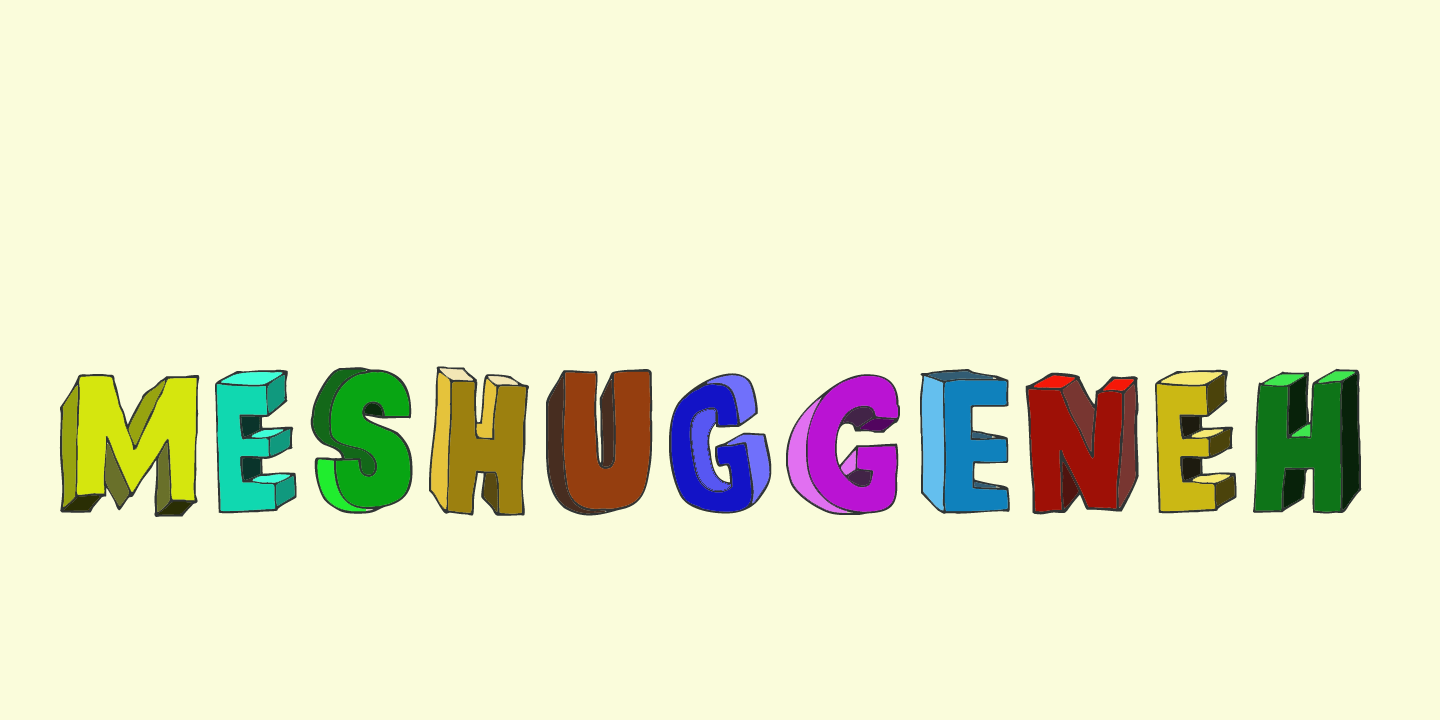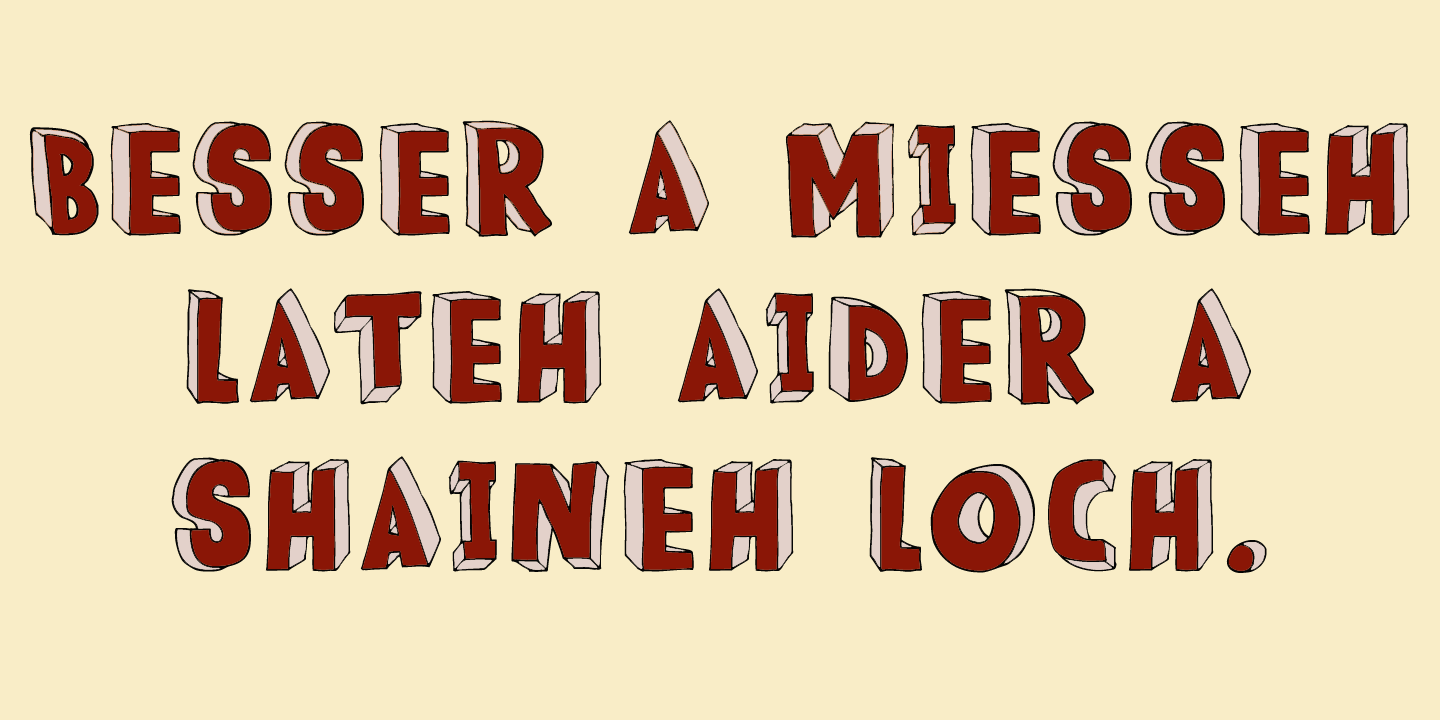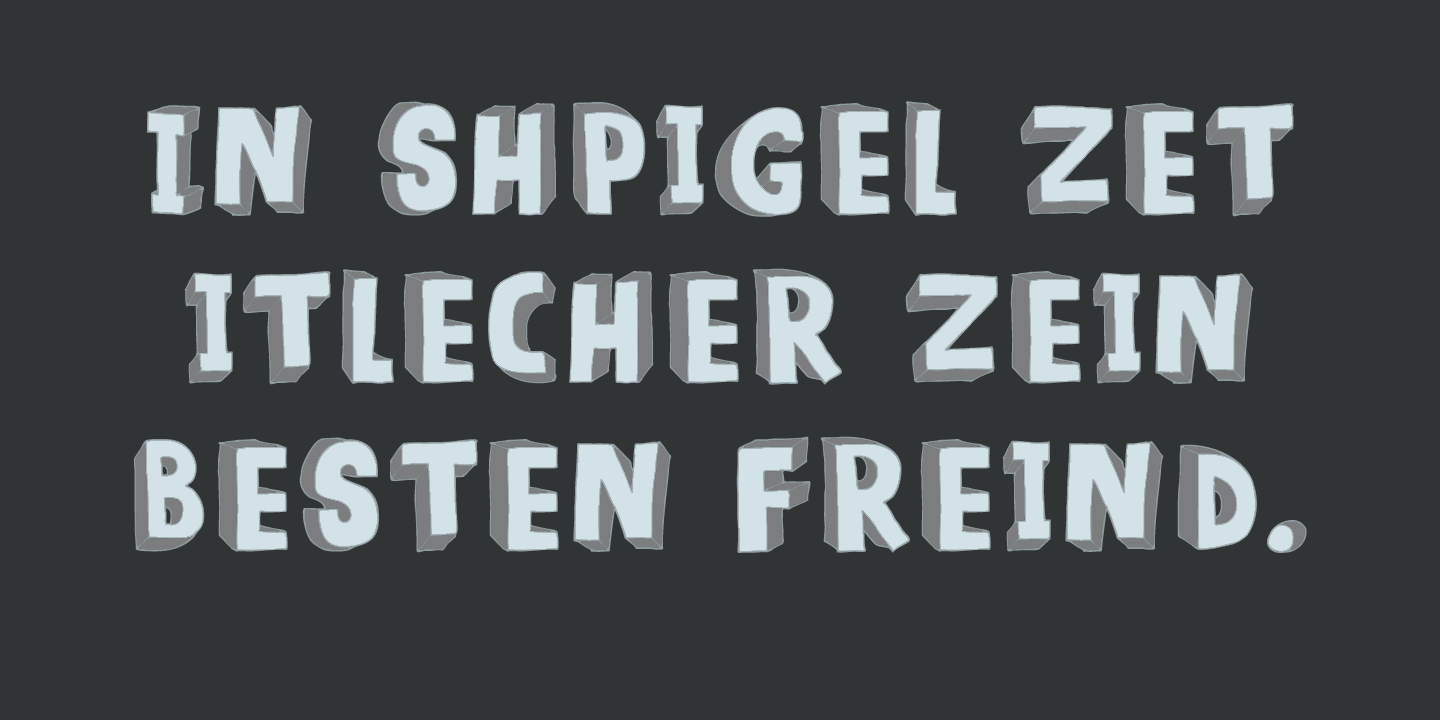
Meshuggeneh
Meshuggeneh means ?crazy fool? in Yiddish. The typeface before you is kind of crazy as well: it is 3D, twisted, with light and shadows in all directions. Meshuggeneh comes with all diacritics, oy veh!